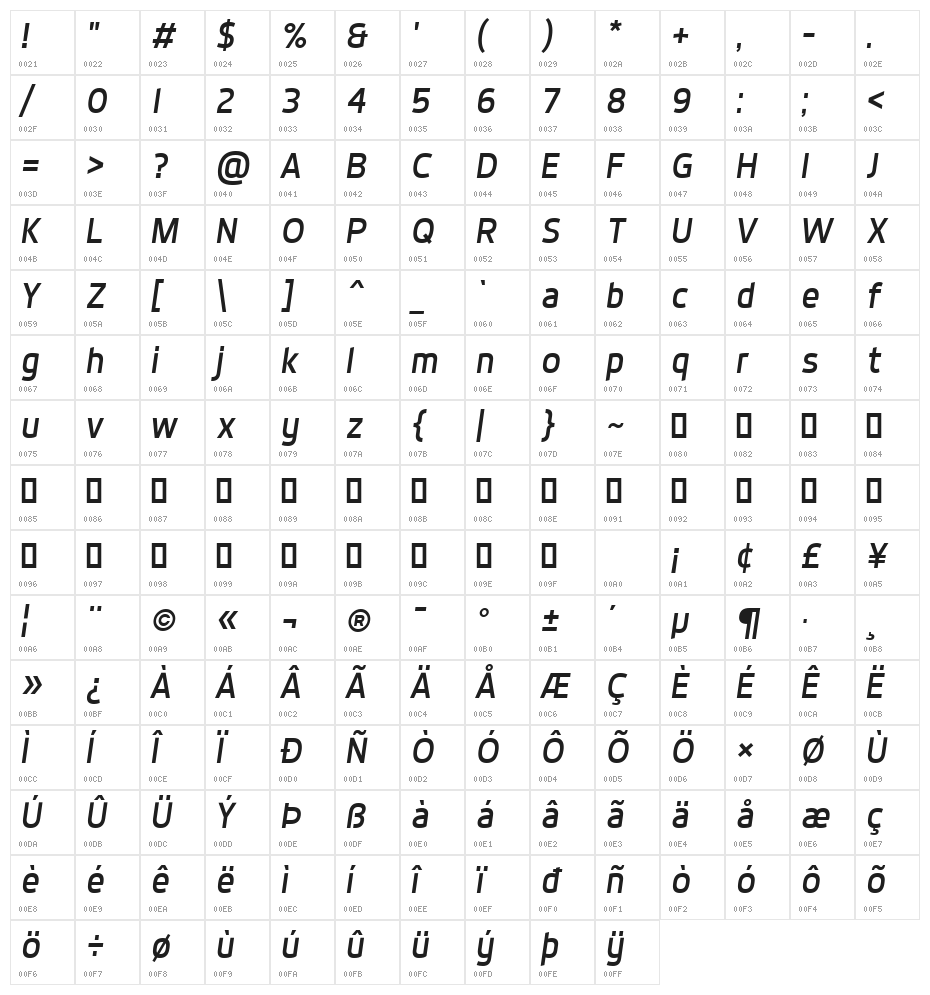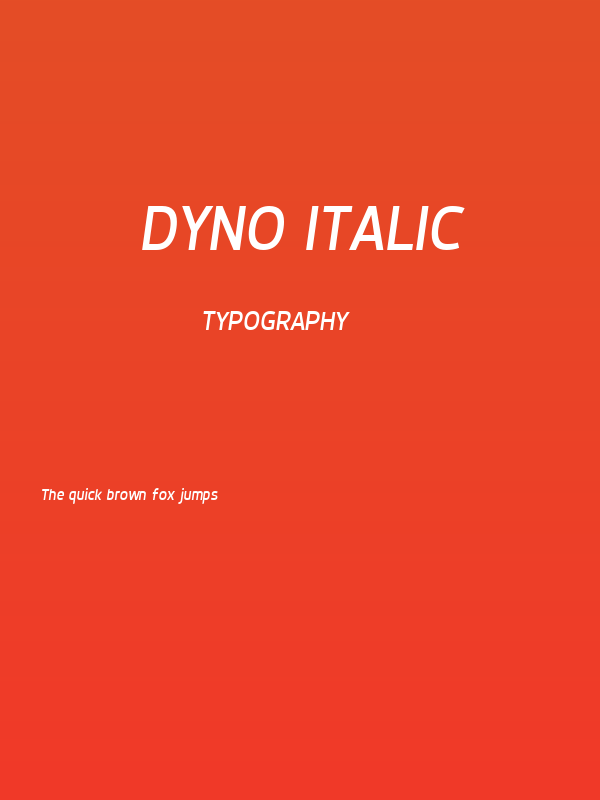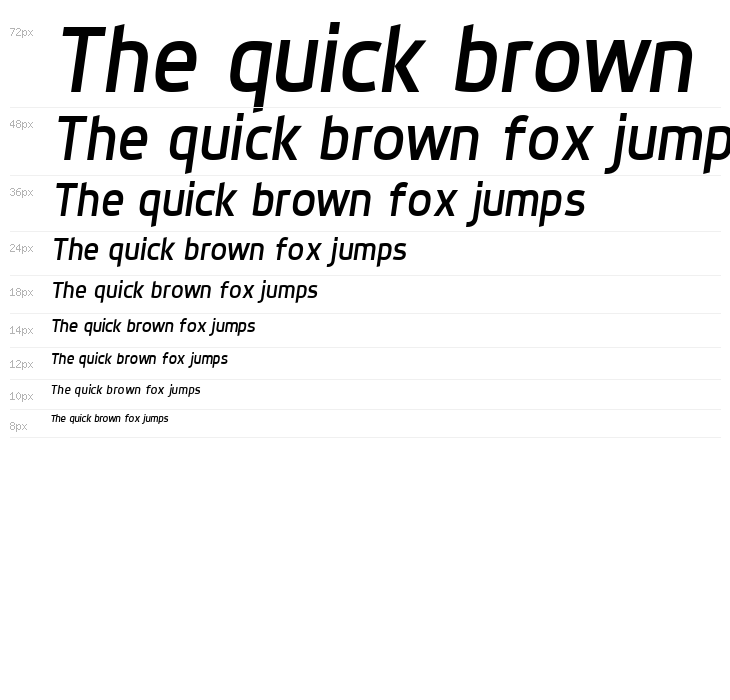
Dyno Italic Font
Dyno Italic Description
This font features a sleek, modern design with a distinct italic slant, giving it a dynamic and forward-moving appearance. The characters are clean and well-defined, with a consistent stroke width that maintains readability across various sizes. The uppercase letters are bold and commanding, while the lowercase letters offer a smooth, flowing style that complements the overall aesthetic. The numerals are clear and balanced, making them suitable for both display and text purposes. Special characters are included, maintaining the font's cohesive look. This font is versatile, suitable for a range of applications from digital to print media.